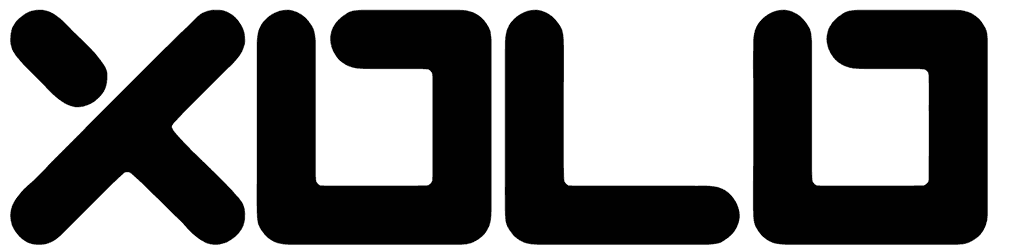
Xolo Font
If you want to hardly impress the audience with the quality of your artwork even at the first glance, a magical futuristic font such as Xolo would give you a hand to achieve this goal.
Aside from the lack of lowercase letters, due to its two distinctive styles, it can add a good variety to your business cards, billboards, logos, flyers, or brochures. Needless to say that it leads to a vibe of dynamic, vivacity, vitality, or jauntiness.
Inspired by the Logo of XOLO SmartPhone manufacturer.